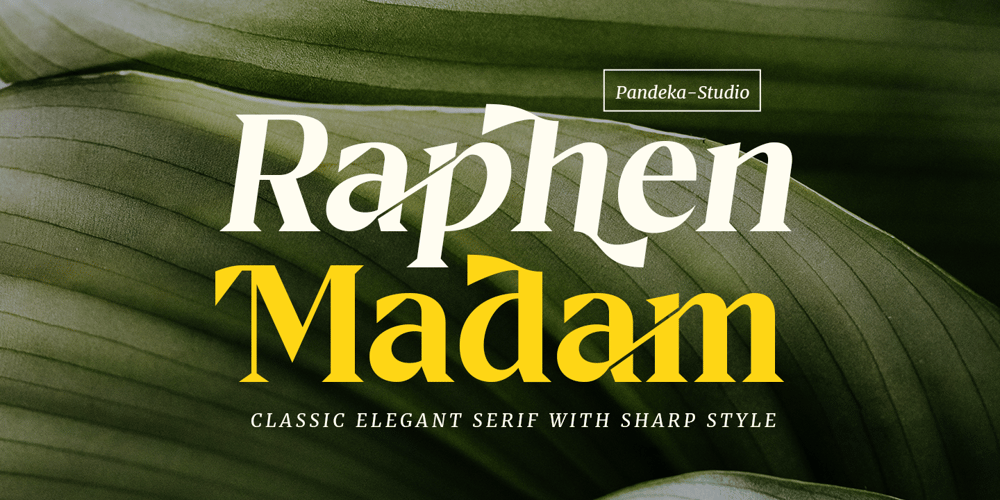
Raphen Madam Font Family was designed by Sagara Nararya and published by Pandeka Studio. Raphen Madam contains 2 styles and family package options. Say hello to new Classic Elegant Serif, Raphen Madam!Raphen Madam – Classic font that we create with unique shape and any creative ligature and alternate perfect for branding or logotype design.Raphen Madam – Fearless and chic typeface perfect for big headlines for both print and web. It comes with Italic style, unique lower and uppercase plus numbers, punctuation & multilingual lettersFile Included Raphen Madam main file Regular and Italic Letters, numbers, symbols, and punctuation Has 37 beautiful alternates and ligatures Use in many programs even in Canva Multilingual Support Follow my shop for upcoming updates including additional glyphs and language support. Please message me if you want your language lncluded. If there are any features or glyph requests, feel free to send me a message.Have a Good Day !Pandeka Studio